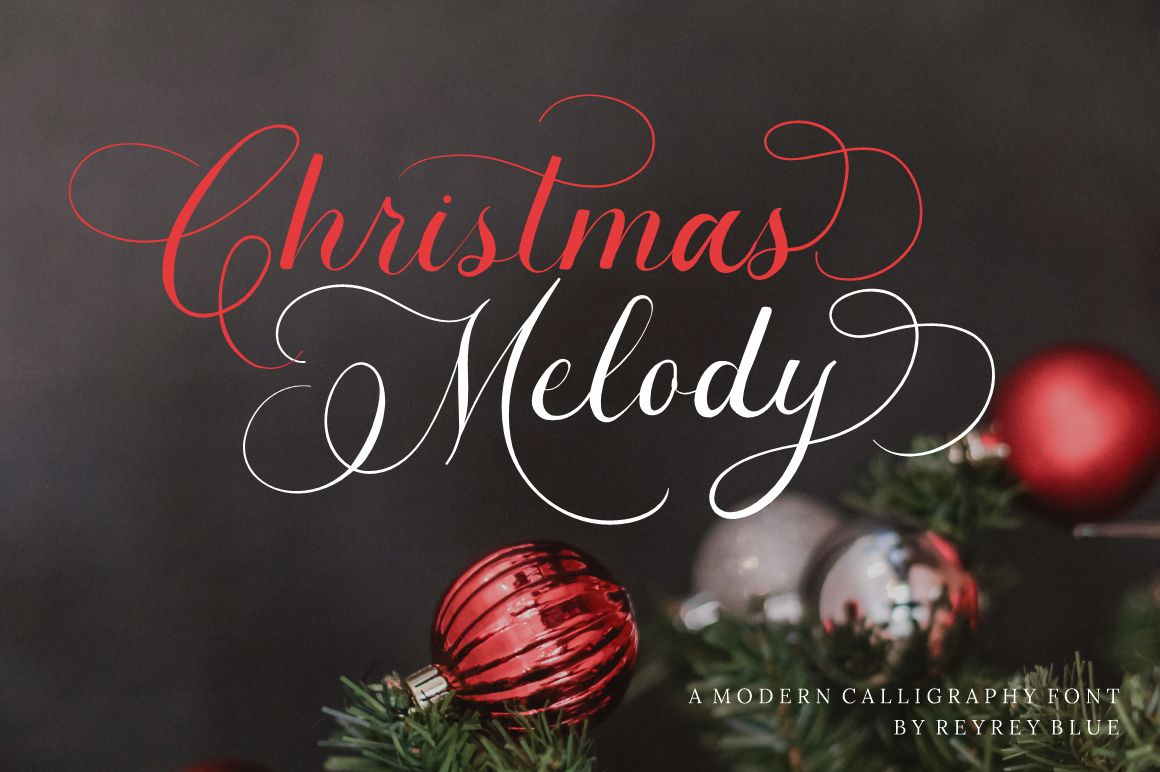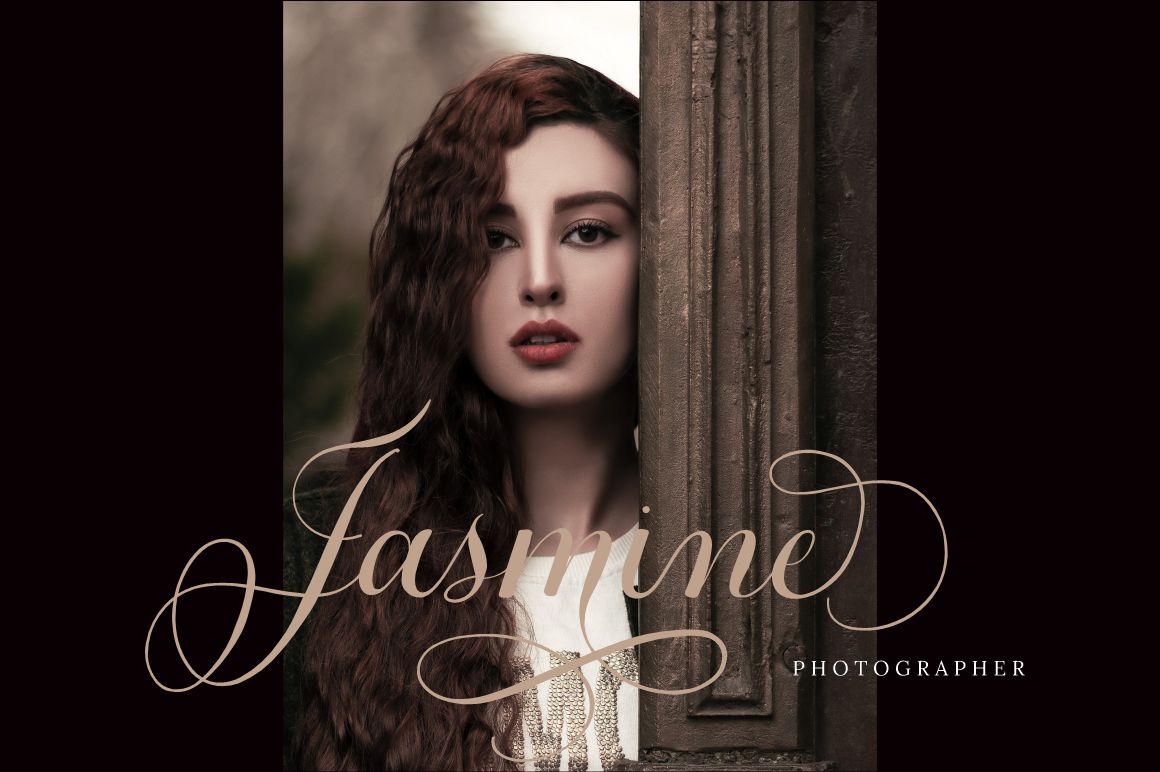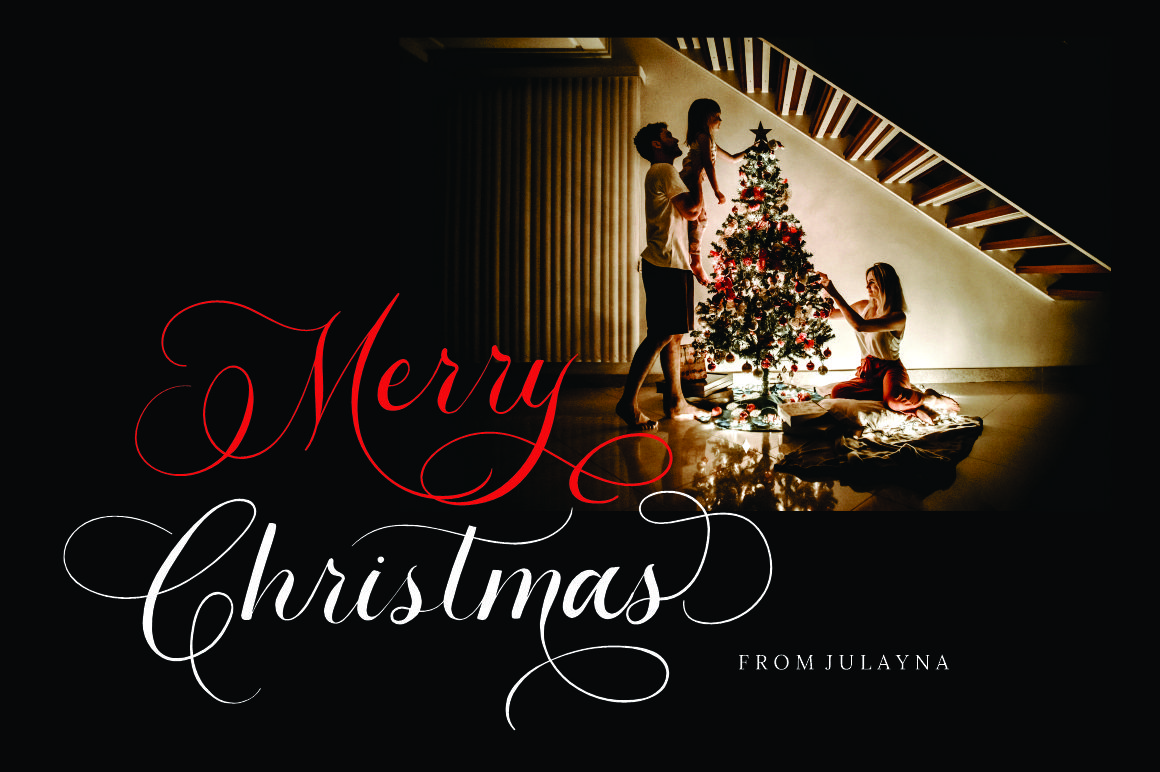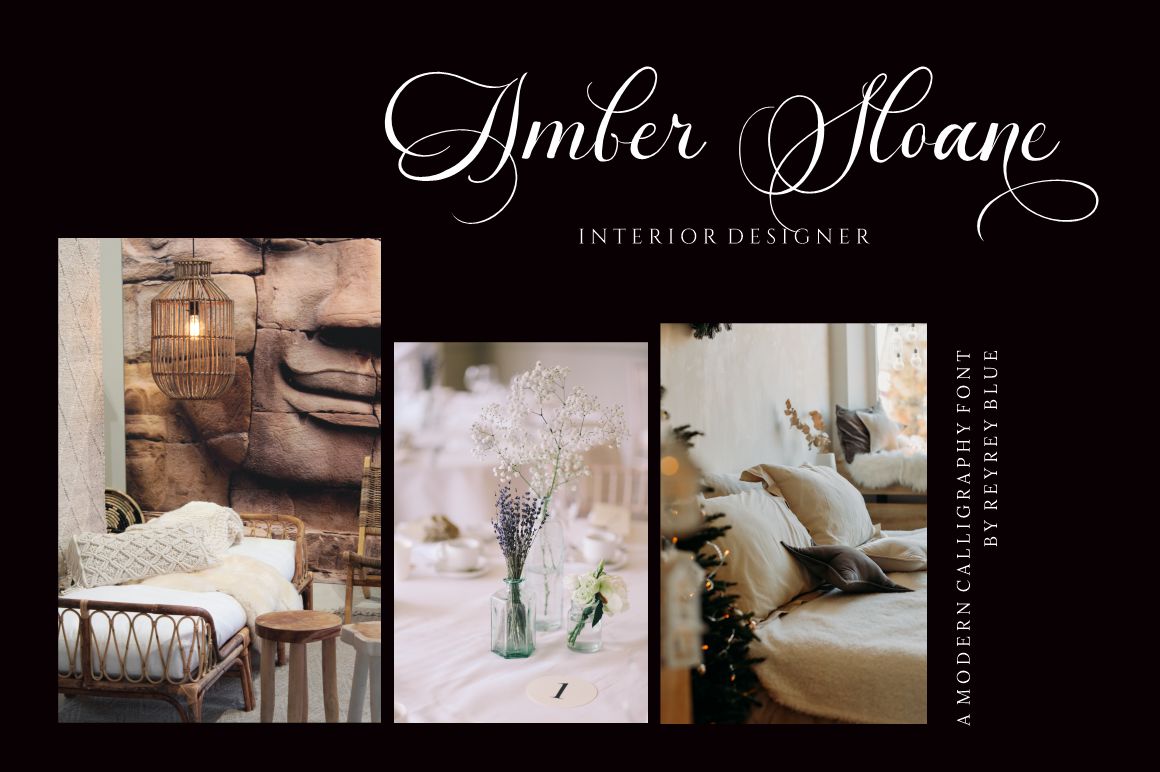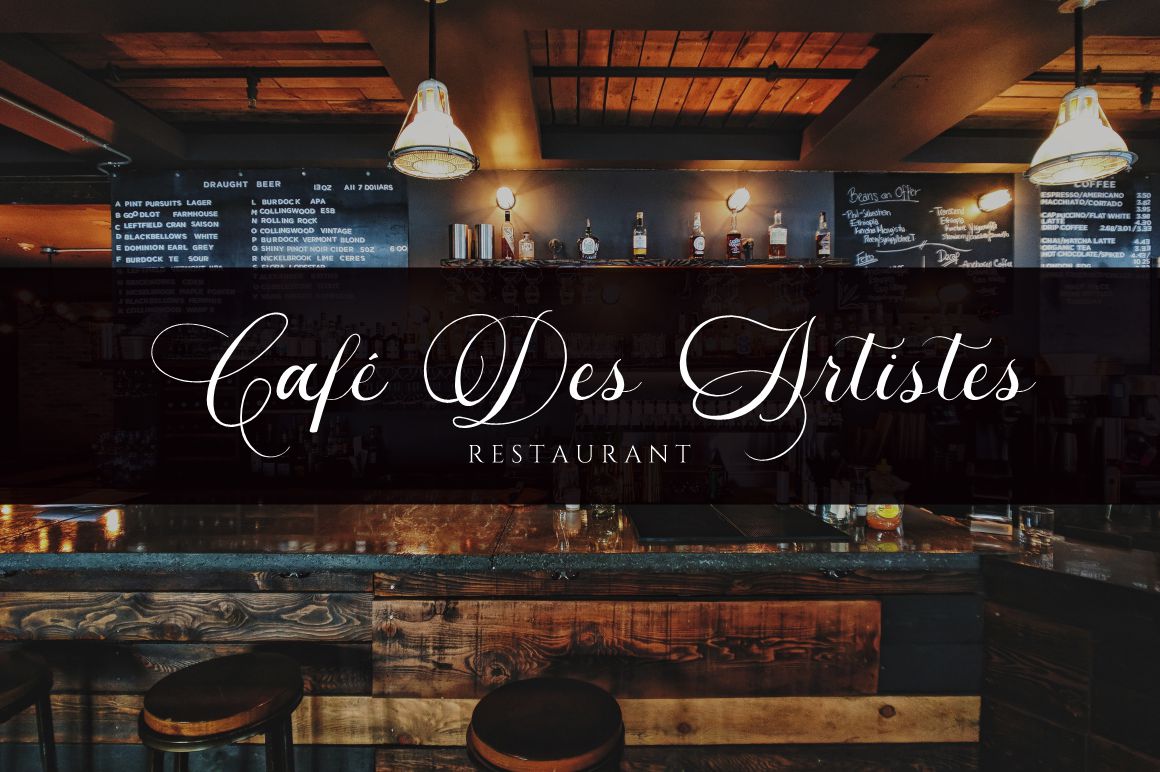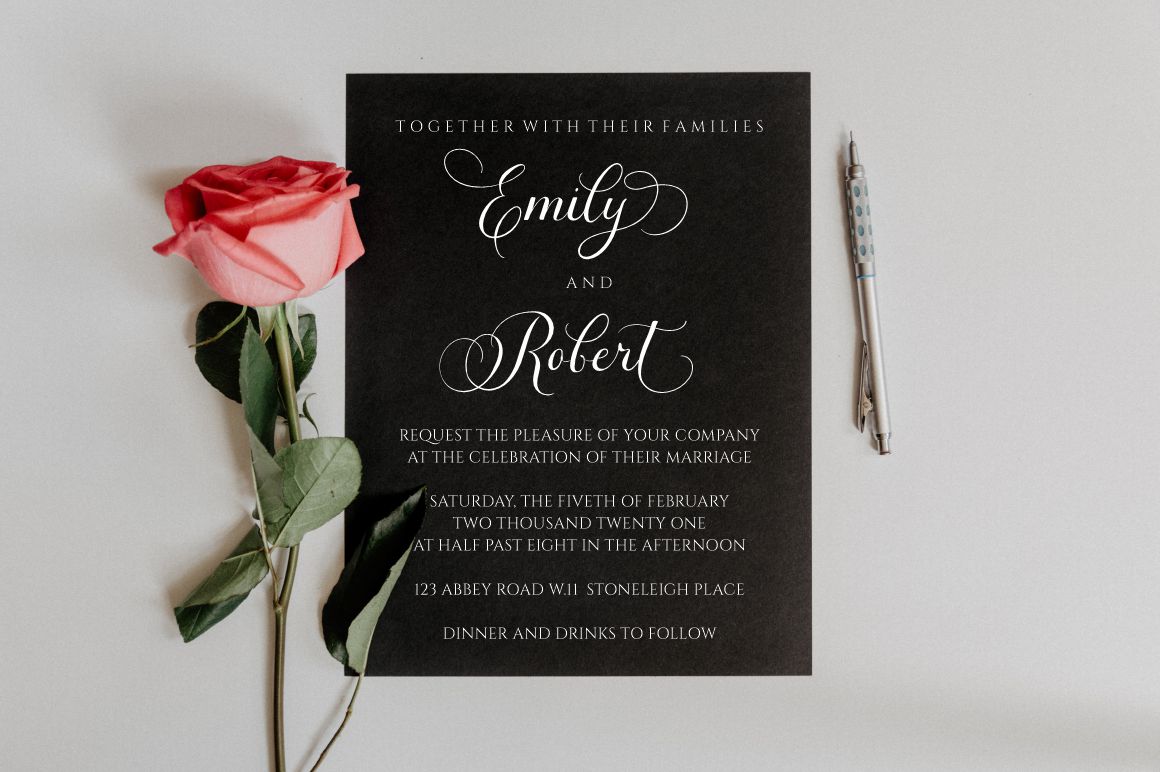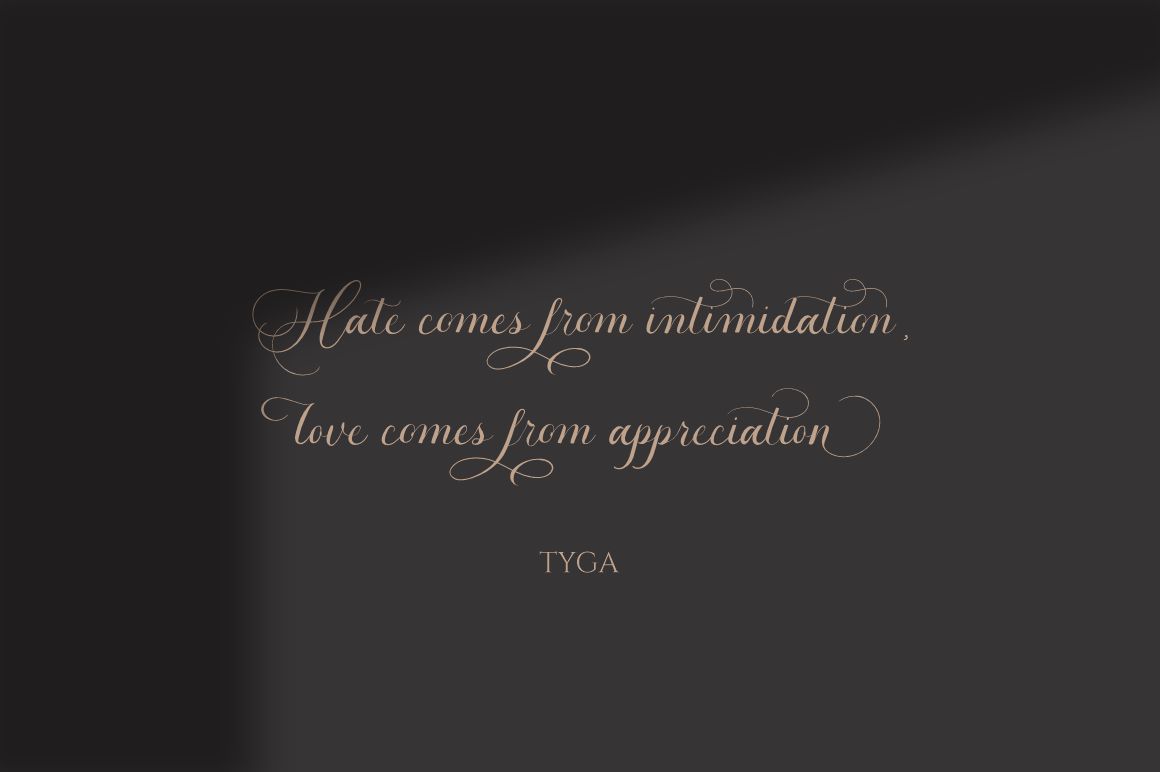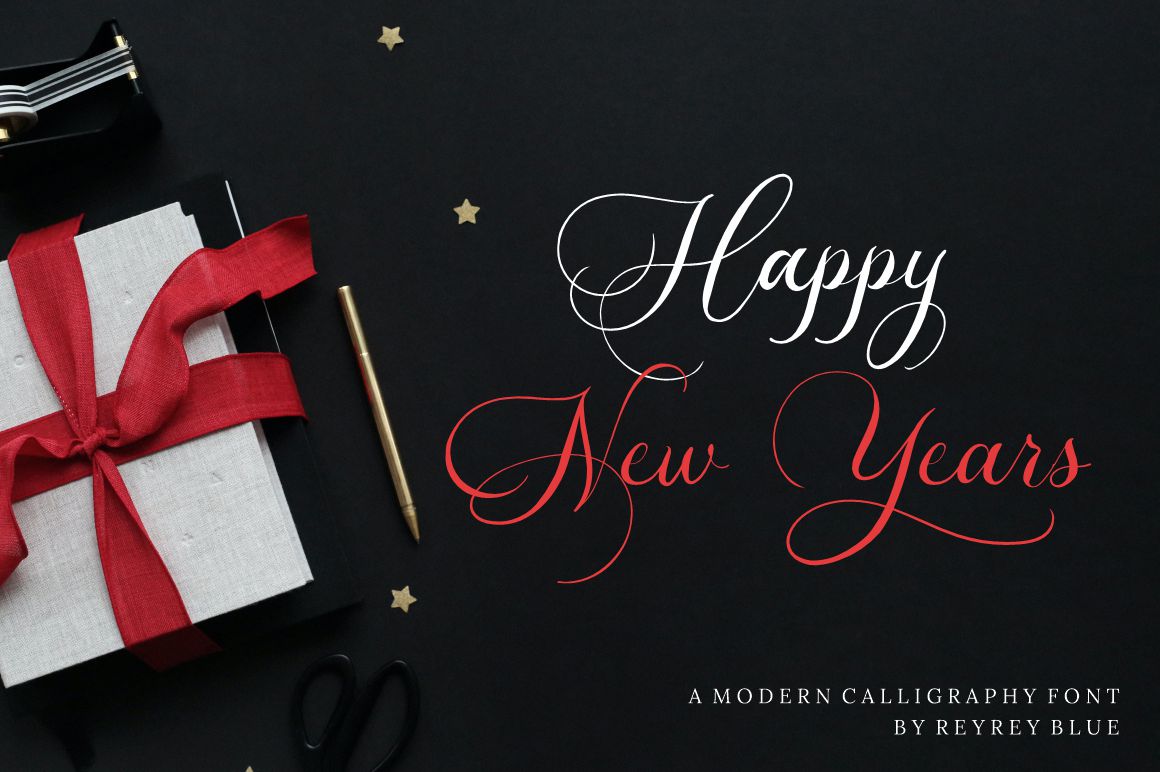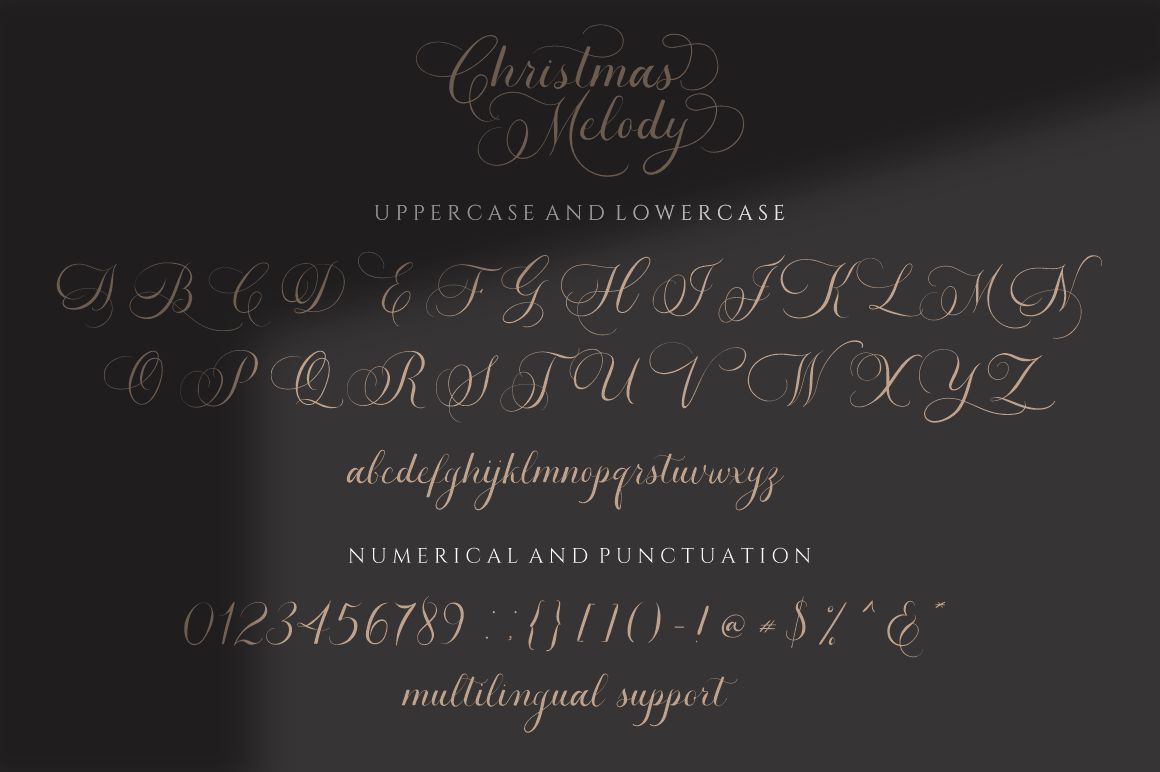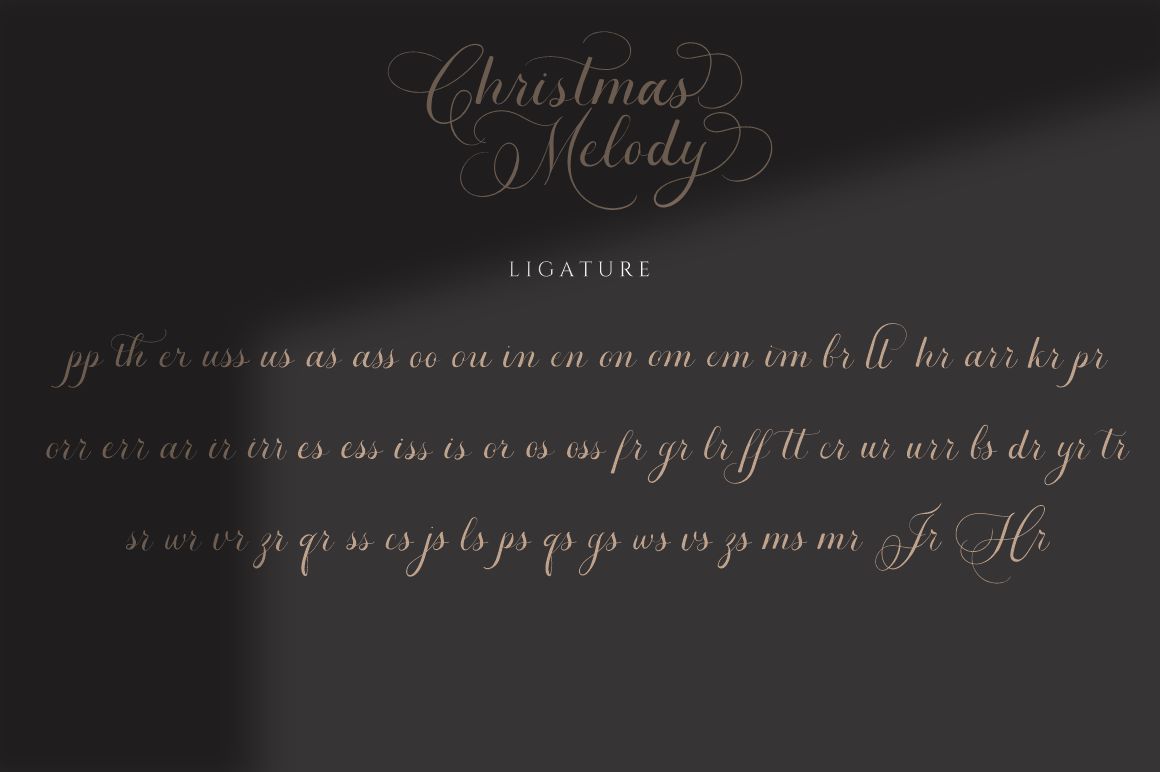
Christmas Melody - Wedding Font
Christmas Melody is modern calligraphy font made by handwritten with a classic style and a touch of elegance.
Christmas Melody is perfect for red wine label, vodka label, upscale packaging, wedding stationery, invitations, business cards, branding and other projects that require a touch of handwriting and luxury.
Features :
· All Uppercase and Lowercase
· Number & Symbol
· Supported Languages
· Alternates and Ligatures